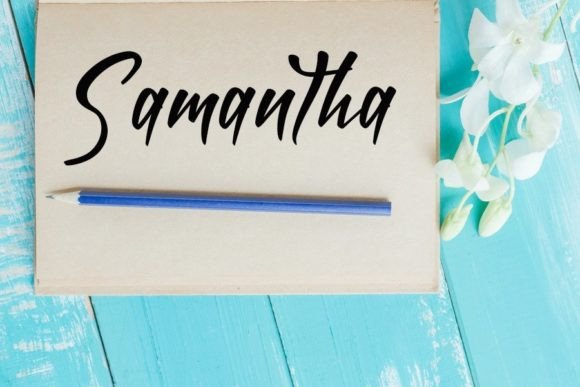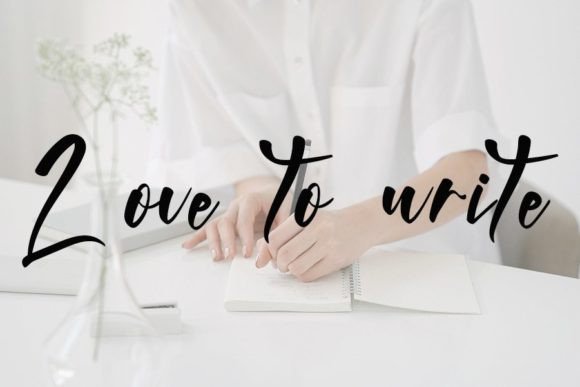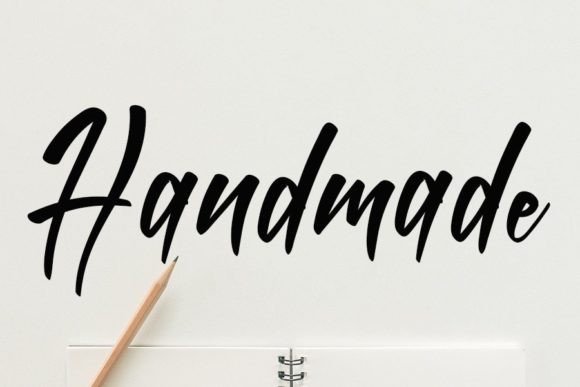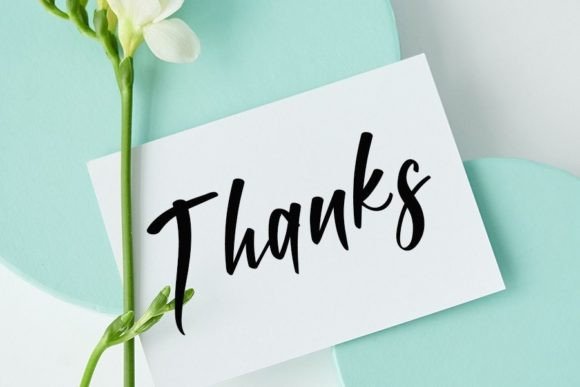
Thankful Font
About Thankful Font
“Thankful” is a graceful and elegant handwritten font that embodies simplicity and beauty. Its neat and beautiful design exudes a sense of refinement, making it a perfect choice for a wide range of creative projects. With an elegant touch and a timeless style, “Thankful” adds a touch of sophistication to your designs, elevating them to a new level of visual appeal.
The font’s clean and well-crafted letterforms create a sense of harmony and balance, ensuring readability and visual elegance. Its simplicity is its strength, allowing it to adapt seamlessly to various design contexts. Whether you’re working on invitations, branding materials, quotes, greeting cards, or any other creative endeavor, “Thankful” enhances the aesthetic appeal of your projects with its timeless charm.
“Thankful” evokes a sense of gratitude and appreciation, making it suitable for projects that convey heartfelt messages. Its handwritten elegance adds a personal and intimate touch to your text, creating a warm and welcoming atmosphere. Whether used for special occasions, heartfelt notes, or elegant branding, “Thankful” brings a sense of sincerity to your designs, making them visually captivating and emotionally resonant.
One of the standout features of “Thankful” is its versatility. Its distinct and timeless style allows it to adapt to both formal and informal contexts, making it suitable for a wide range of applications. The font’s elegant touch makes it perfect for sophisticated branding, wedding invitations, and upscale events, while its simplicity also makes it accessible for everyday designs such as social media graphics and quotes.
Embrace the grace and elegance of “Thankful” and let it enhance your favorite projects. Its distinct and timeless style makes it a valuable asset in your design toolkit, allowing you to create visually stunning and emotionally resonant designs. With “Thankful,” you can confidently convey your messages with sophistication and style, leaving a lasting impression on anyone who experiences your work.